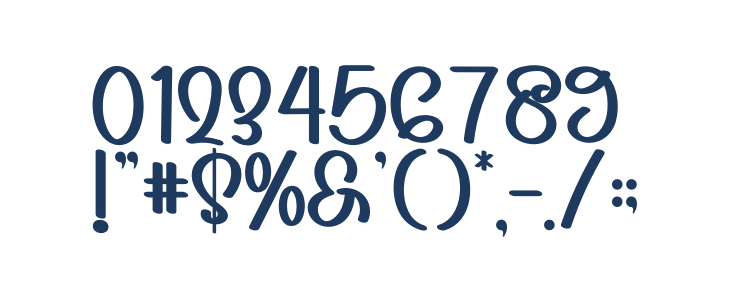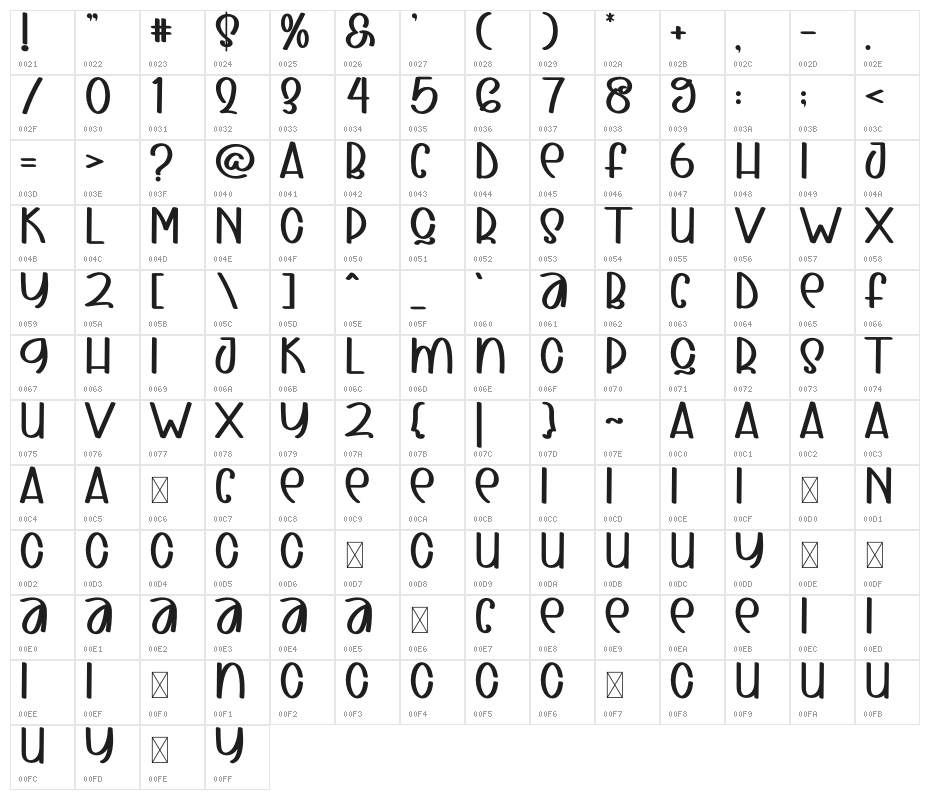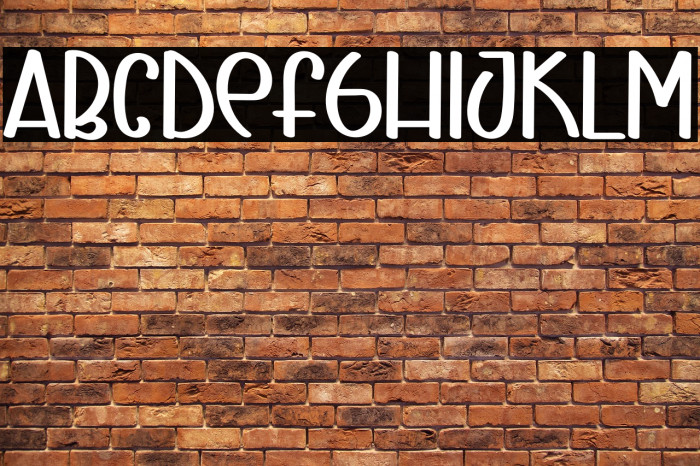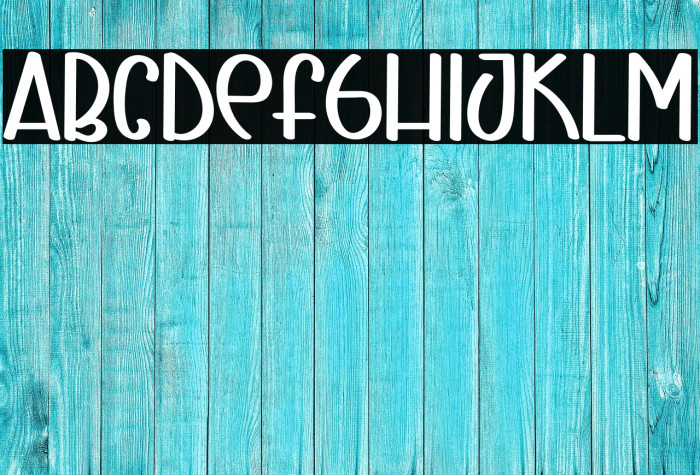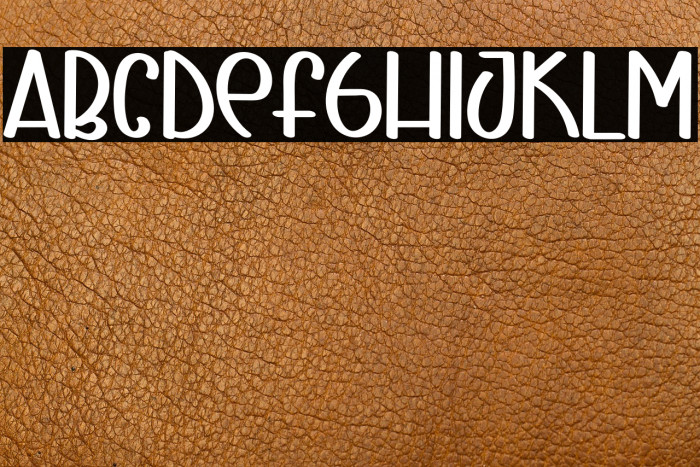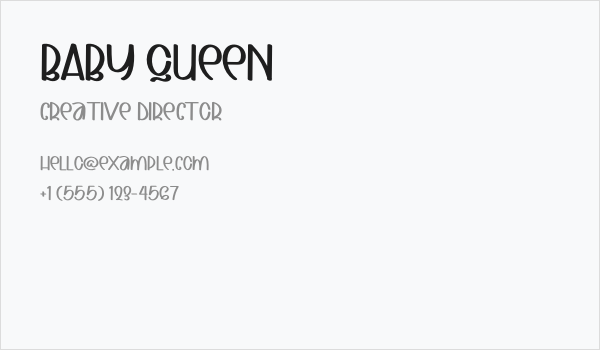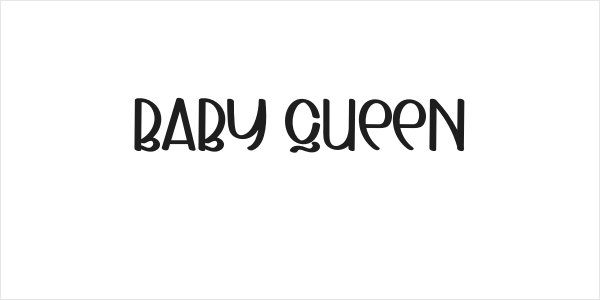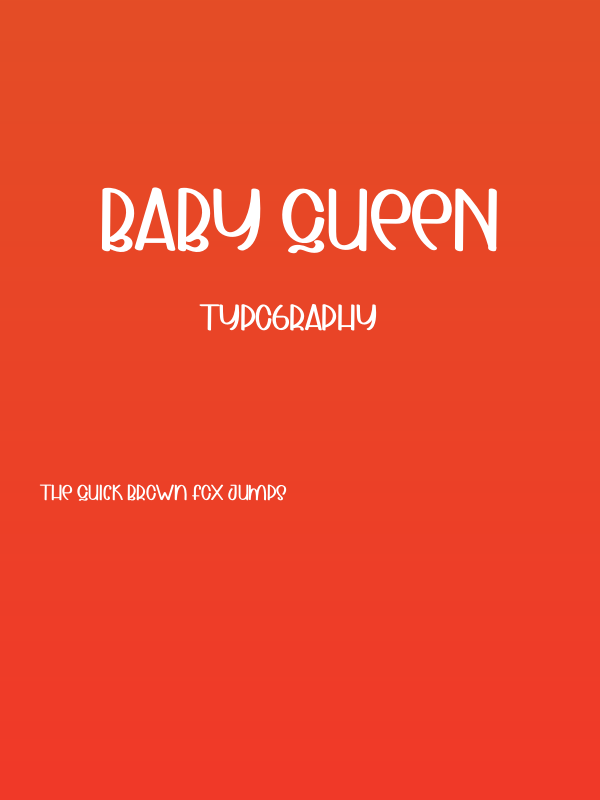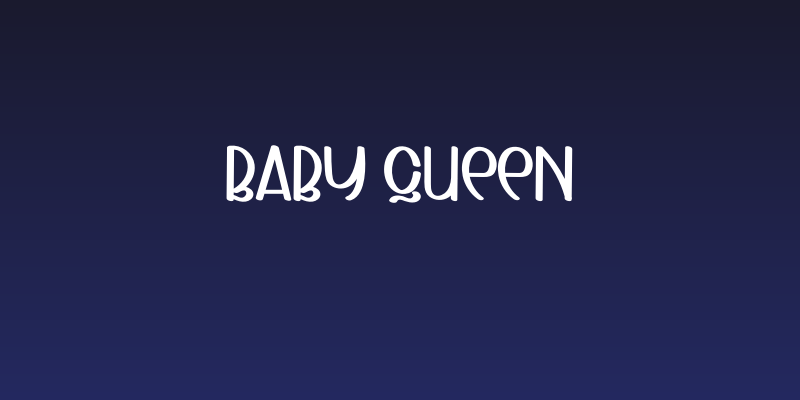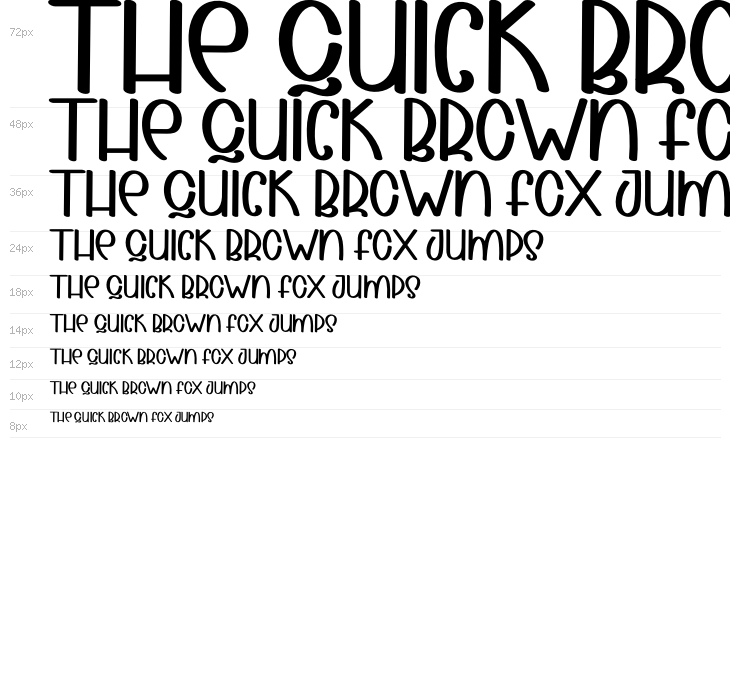
BABY QUEEN Font
BABY QUEEN Description
This playful and whimsical font features a unique blend of rounded and angular elements, creating a lively and energetic appearance. The uppercase letters are bold and slightly condensed, with distinctive curves and loops that add character. The lowercase letters maintain a consistent style, with a smooth flow and rounded edges. The numbers are bold and easily readable, while the special characters complement the overall style with their quirky and fun design. This font exudes a sense of joy and creativity, making it perfect for projects that aim to capture attention and convey a sense of fun.